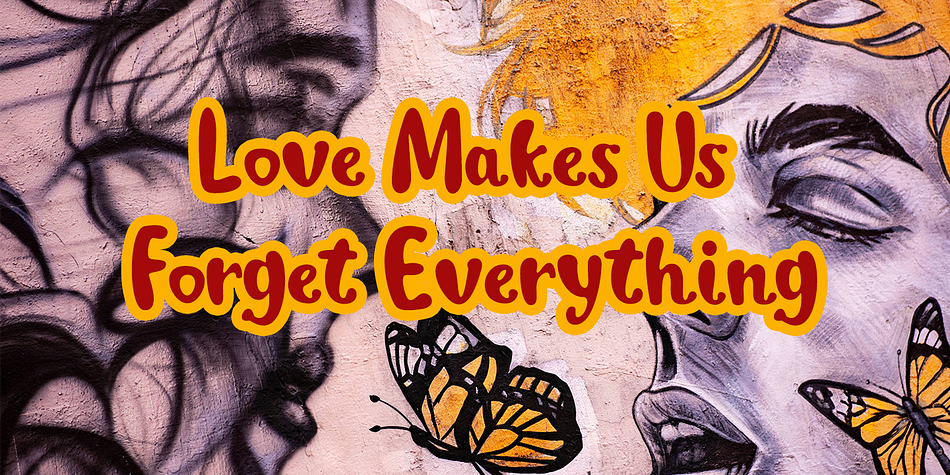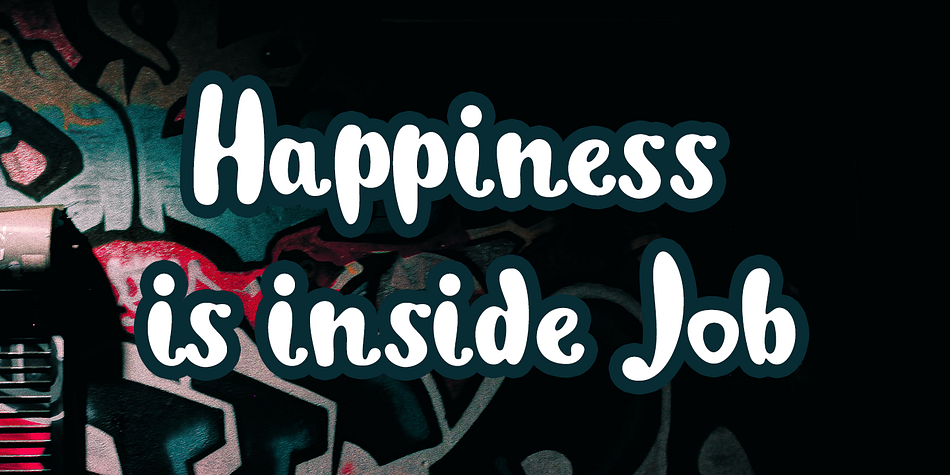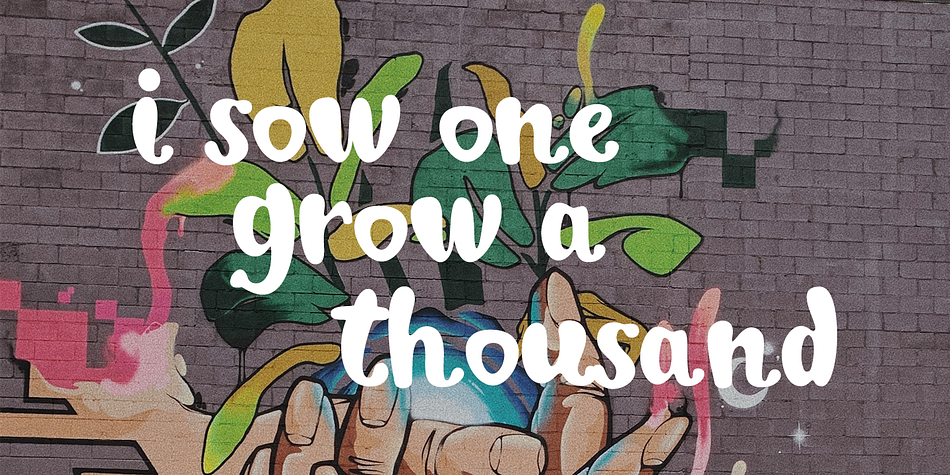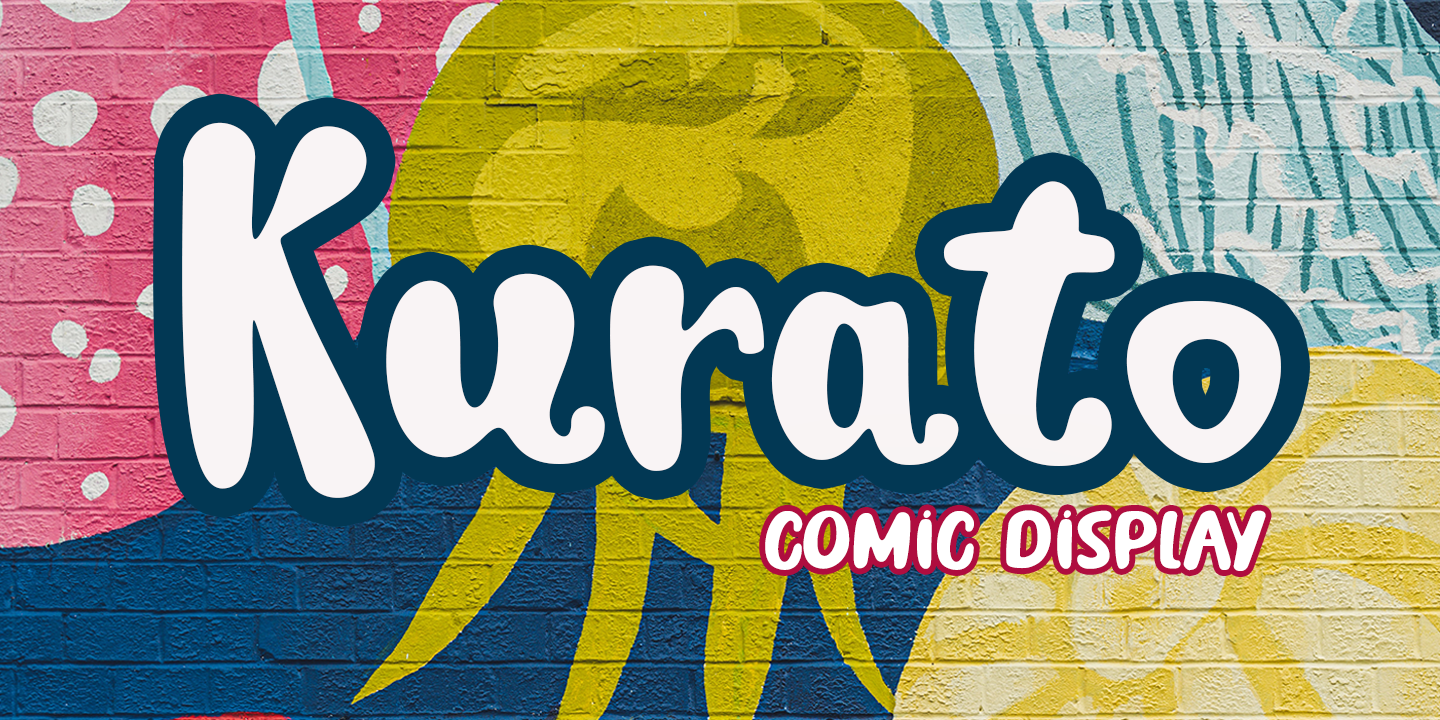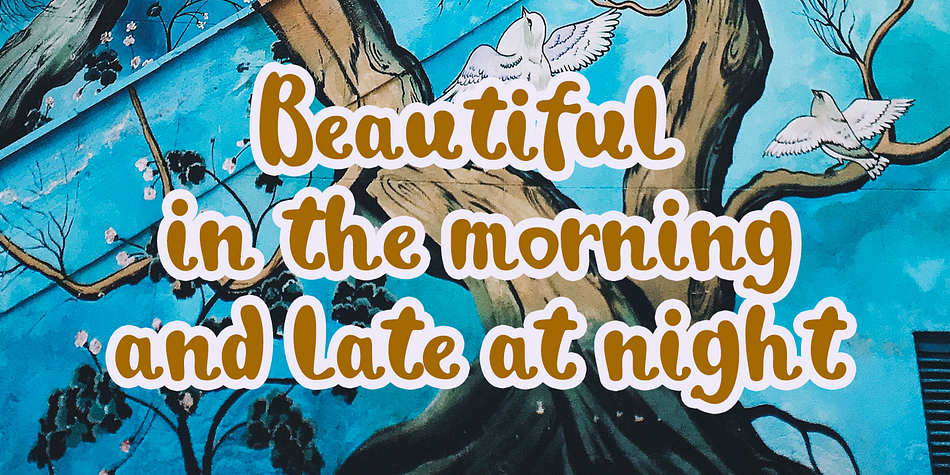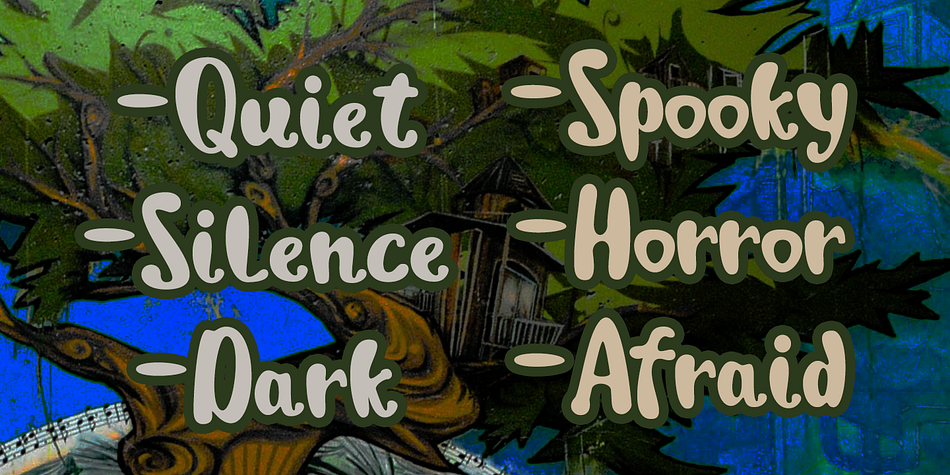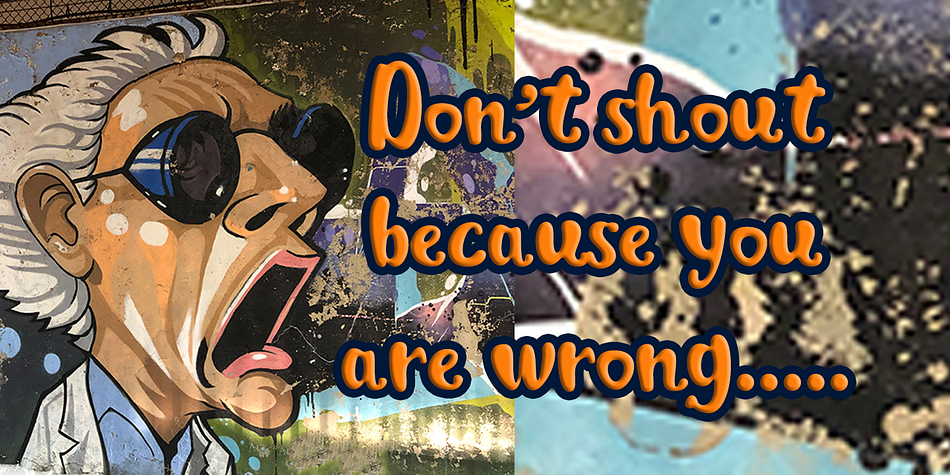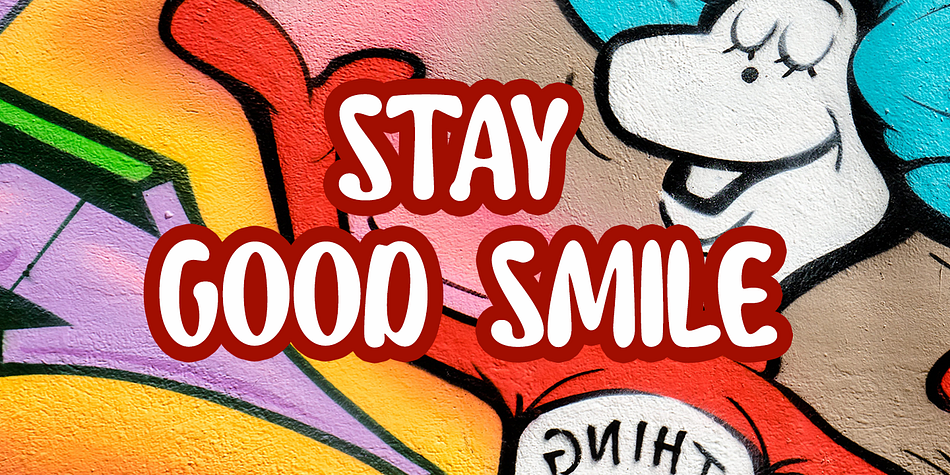
Kurato
Kurato is a comic and retro font family published by Gatype.
Kurato font with a simple natural and comic style, you can take advantage of any occasion one of the beautiful ways to highlight your best holiday celebrations, because this font will be the driving force for purposes such as cover design, wedding invitations, parties, graduations, birthdays , gatherings, etc. Kurato font if you want to use for your work this font can be used easily and simply because there are many features in it contains a full set of lowercase and uppercase letters, various punctuation marks, numbers, and multilingual support.